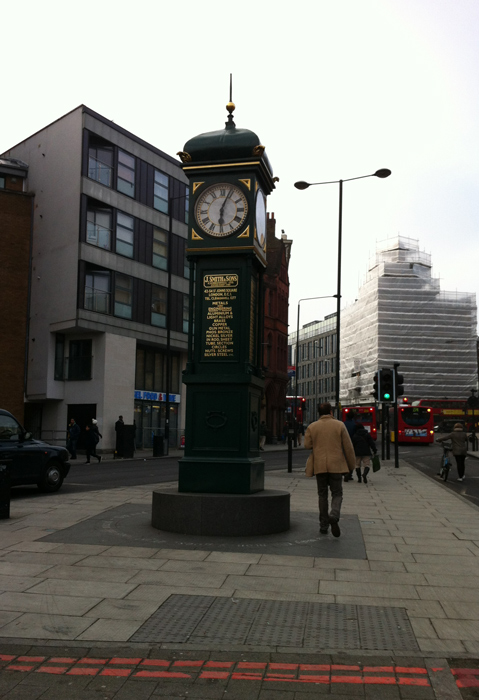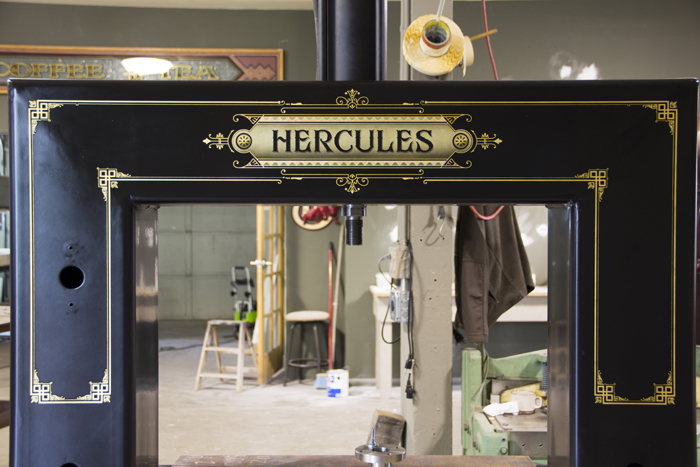
The Future of Hand Painted lettering with Gold Leaf
My final chapter of my dissertation on gold leaf gilding in signwriting is dedicated to the future; I would appreciate any views and opinions from craftsmen who use gold in their hand lettering work.
With techniques and processes changing very little for hundreds of years, do you see any new technologies that may impact the trade?
For example, I have seen lots of signs in London that are just gold vinyl, that doesn't have the same luster as the real thing. Not to mention the way the gold vinyl starts to peel away and fall off in a short amount of time.
Vinyl screens are also used here, with gold size being applied through the screen. At least, I hope I'm correct in saying this example of lettering is a from a computer and not by hand.
This technique, in my opinion, loses some of the beauty in hand craftsmanship. It becomes too 'perfect' and therefore inhumane.
I understand the complex issue of economics and offering services to clients on a level that is affordable. But when you see luxury retailers that pride themselves on authentic quality resorting to vinyl, it seems like something is amiss there. That's not a future that I'd like to see common place. Will all respect for quality and craftsmanship fade from life?
With techniques and processes changing very little for hundreds of years, do you see any new technologies that may impact the trade?
For example, I have seen lots of signs in London that are just gold vinyl, that doesn't have the same luster as the real thing. Not to mention the way the gold vinyl starts to peel away and fall off in a short amount of time.
Vinyl screens are also used here, with gold size being applied through the screen. At least, I hope I'm correct in saying this example of lettering is a from a computer and not by hand.
This technique, in my opinion, loses some of the beauty in hand craftsmanship. It becomes too 'perfect' and therefore inhumane.
I understand the complex issue of economics and offering services to clients on a level that is affordable. But when you see luxury retailers that pride themselves on authentic quality resorting to vinyl, it seems like something is amiss there. That's not a future that I'd like to see common place. Will all respect for quality and craftsmanship fade from life?
Re: The Future of Hand Painted lettering with Gold Leaf
There are a lot of moving parts in this simple question.
Many things have changed since the days you might expect to see gold on almost all banks, lawyers, and doctors offices.
Just a few factors:
1. Gold is much more expensive lately.
2. Cost of living, including health insurance has gone out of sight.
3. Small town, mom and pop, businesses are being replaced with corporations.
When we had our shop, it was always difficult to pack up and go to a window or door downtown and spend all the time away from the shop.
I always think back on Steven Parrish. He did bank window and door lettering all over the Central Plains of the US. He worked out of a small basement in his small house in a small town. His biggest expense was his vehicle, gas and motels. He worked for the home town banks with names like "The First Bank of Aurora" and not Wells Fargo. He knew the bank president personally.
I think the guy you really need to speak to is Bruce Jackson in Australia. He has made a business of doing mostly gold work.
There are a lot of moving parts in this simple question.
Many things have changed since the days you might expect to see gold on almost all banks, lawyers, and doctors offices.
Just a few factors:
1. Gold is much more expensive lately.
2. Cost of living, including health insurance has gone out of sight.
3. Small town, mom and pop, businesses are being replaced with corporations.
When we had our shop, it was always difficult to pack up and go to a window or door downtown and spend all the time away from the shop.
I always think back on Steven Parrish. He did bank window and door lettering all over the Central Plains of the US. He worked out of a small basement in his small house in a small town. His biggest expense was his vehicle, gas and motels. He worked for the home town banks with names like "The First Bank of Aurora" and not Wells Fargo. He knew the bank president personally.
I think the guy you really need to speak to is Bruce Jackson in Australia. He has made a business of doing mostly gold work.